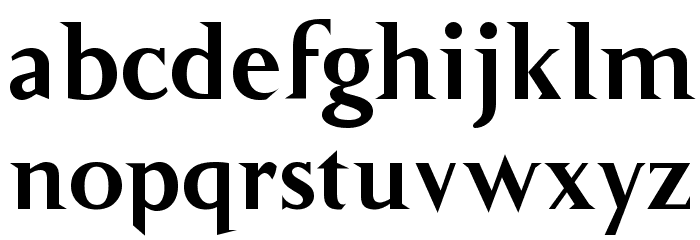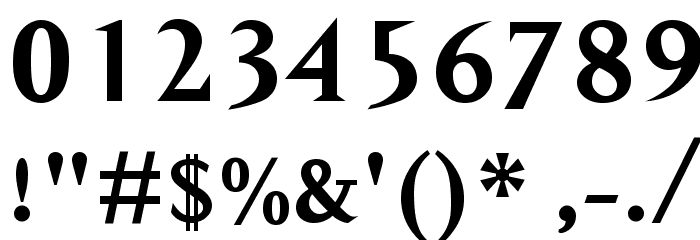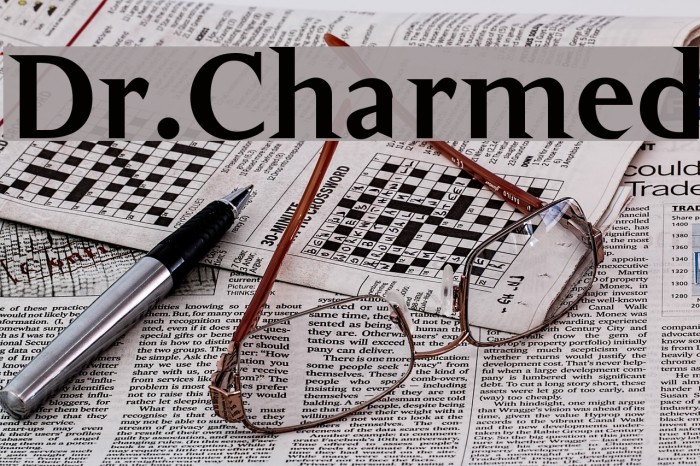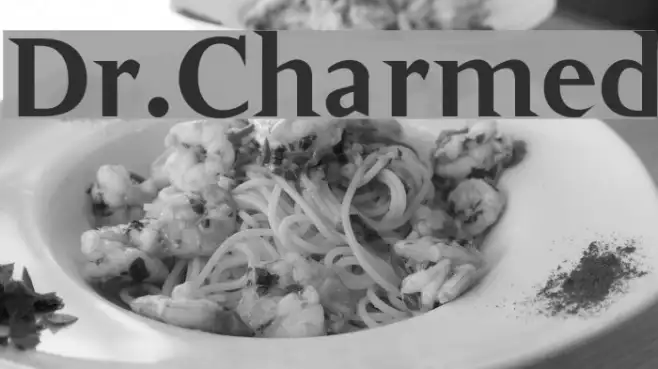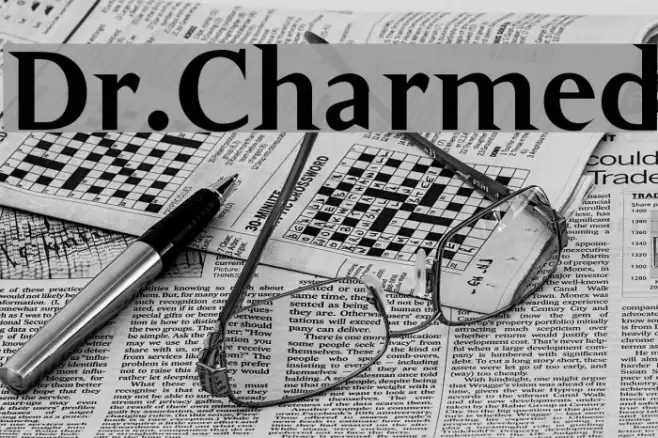
Dr.Charmed Font
This font exhibits a classic serif style with a strong presence and elegant curves. The uppercase letters are bold and commanding, while the lowercase letters maintain a refined and sophisticated appearance. The numerals are clear and well-defined, making them easily readable. The special characters are designed with a consistent style that complements the overall aesthetic. The font's high contrast in stroke thickness adds to its readability and visual appeal, making it suitable for both print and digital media.
A classic serif font with high contrast and elegant curves.
- Proposed Projects: Ideal for book covers, editorial design, branding, and formal invitations.
- Category: Serif
- Overall Style: Classic